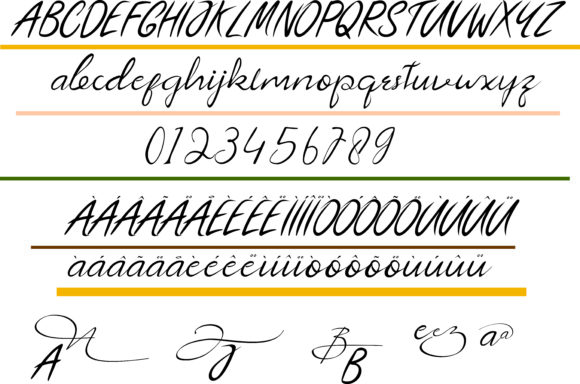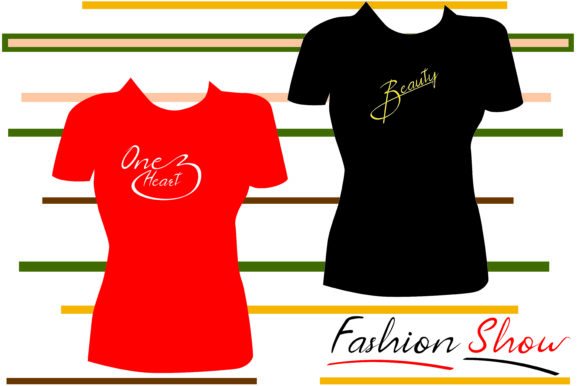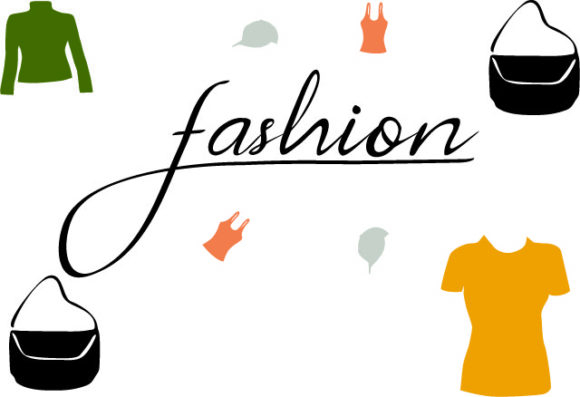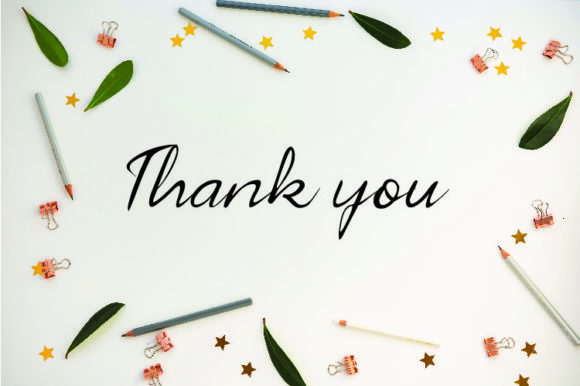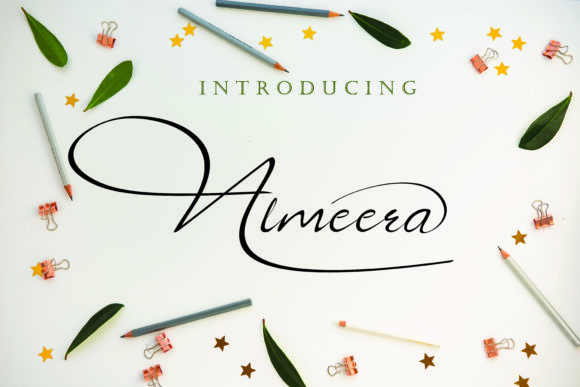
Introducing Almeera Font: Elevate Your Design with Elegant Calligraphy
Are you looking for a font that exudes sophistication and elegance? Look no further than Almeera Font, a stunning calligraphy script font that adds a serious yet refined vibe to any design project. With its beautiful, flowing lines and classic charm, Almeera is the perfect choice for designers and crafters seeking to create visually striking and professional-looking designs.
The Characteristics of Almeera Font
Almeera Font is a gorgeous and fancy calligraphy script font that boasts a range of impressive features. Its elegant, cursive strokes and refined lines give it a sophisticated and luxurious feel, making it ideal for designs that require a high level of professionalism. Whether you’re working on a branding project, a wedding invitation, or a packaging design, Almeera Font is sure to make a lasting impression.
Why Choose Almeera Font?
So, what sets Almeera Font apart from other fonts on the market? Here are just a few reasons why designers and crafters love working with this beautiful font:
- Elegant and Refined: Almeera Font features a sophisticated, high-end look that’s perfect for designs that require a touch of luxury and elegance.
- Versatile: Whether you’re creating a logo, a brochure, or a social media graphic, Almeera Font is versatile enough to adapt to any design style or format.
- Easy to Read: Despite its ornate, calligraphy-style lines, Almeera Font is surprisingly easy to read, making it a great choice for body text as well as headlines.
- Unique and Memorable: With its distinctive, hand-crafted look, Almeera Font is sure to help your design stand out from the crowd and leave a lasting impression on your audience.
How to Use Almeera Font in Your Design Projects
Ready to start working with Almeera Font? Here are a few tips to help you get the most out of this beautiful font:
- Pair it with a Sans Serif Font: For a classic, timeless look, try pairing Almeera Font with a clean, sans serif font like Arial or Helvetica.
- Use it for Headlines and Titles: Almeera Font is perfect for headlines, titles, and other prominent text elements, where its elegant lines and refined style can really shine.
- Experiment with Colors and Textures: To add extra depth and interest to your design, try experimenting with different colors and textures, such as metallic finishes or subtle patterns.
Tips for Crafters and DIY Enthusiasts
If you’re a crafter or DIY enthusiast looking to add a personal touch to your projects, Almeera Font can be a great choice for a range of creative applications. Here are a few ideas to get you started:
- Wedding Invitations: Use Almeera Font to create beautiful, custom wedding invitations that set the tone for a sophisticated and elegant celebration.
- Party Decor: Add a touch of elegance to your party decor with Almeera Font, used on banners, signs, and other decorative elements.
- Journaling and Scrapbooking: Use Almeera Font to add a personal, artistic touch to your journaling or scrapbooking projects, with beautiful headings and titles that showcase your creativity.
In conclusion, Almeera Font is a stunning calligraphy script font that offers a unique combination of elegance, sophistication, and versatility. Whether you’re a designer, crafter, or DIY enthusiast, this beautiful font is sure to inspire your creativity and help you create visually striking designs that leave a lasting impression. So why wait? Download Almeera Font today and start elevating your design projects to new heights of elegance and refinement!